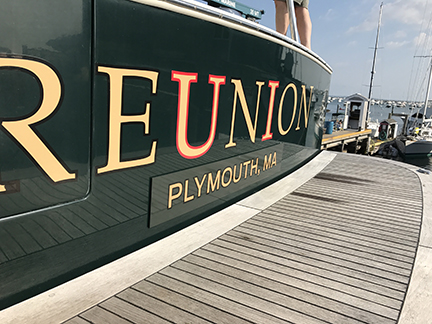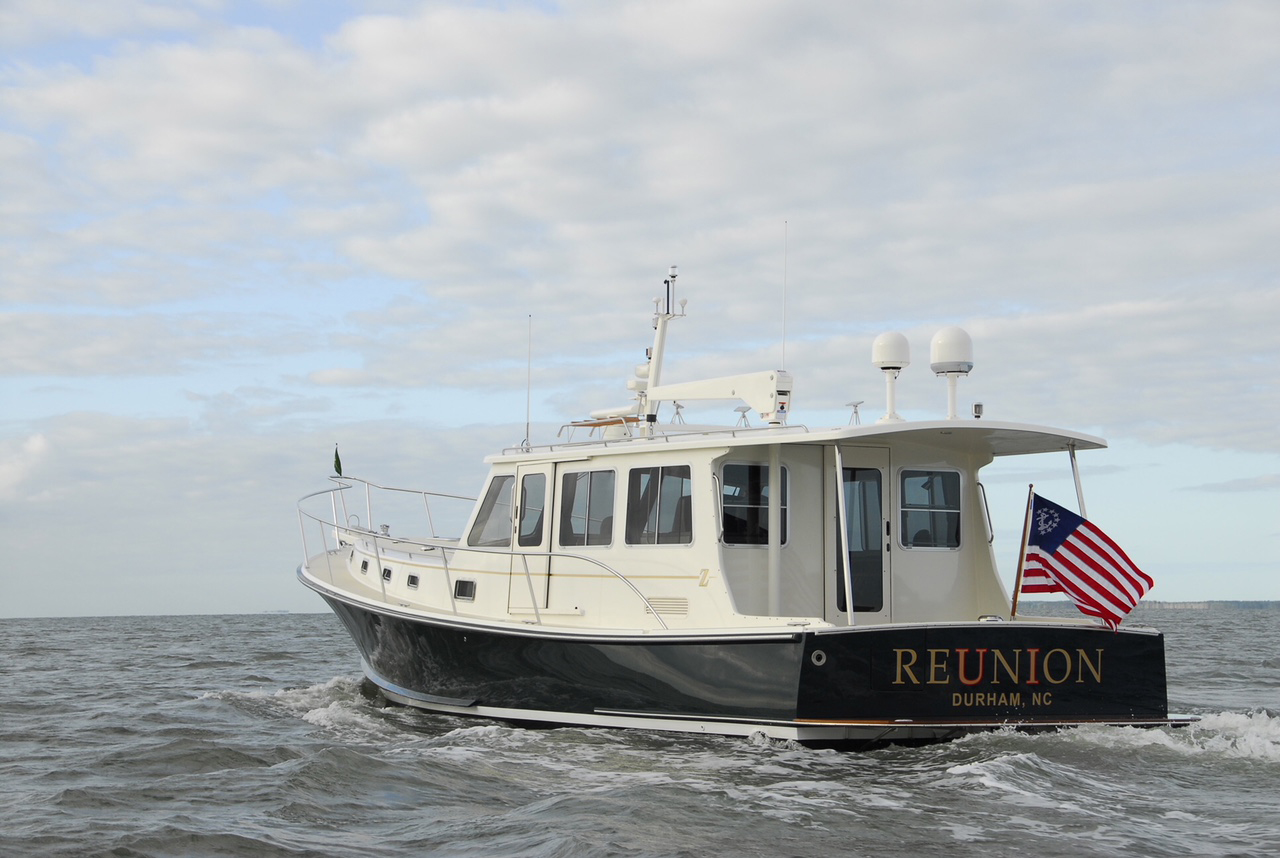
These are the only photos I have and they're pretty tough to run through software.
The break in the R is pretty distinctive (and rare). I can't tell if it was an inline from the outer shape or a font that has an open R
Anyone recognize this font?